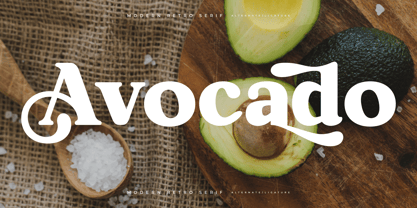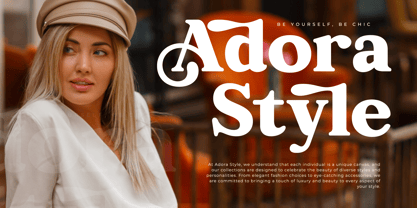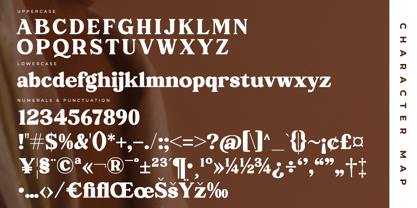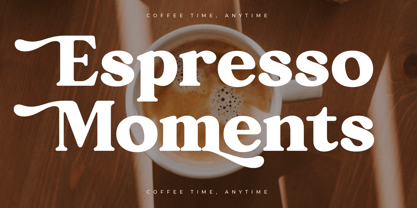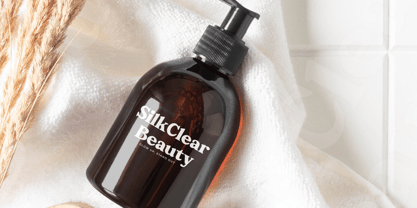
Blastge
by Letterena Studios
The Blastge Font Family was designed by Heru Utama Putra and published by Letterena Studios. Blastge contains 2 styles and family package options. More about this family
Blastge is a modern and stylish serif font that combines sophistication with contemporary flair. Its clean lines and balanced proportions make it perfect for editorial designs, branding, and logos. With its versatility and timeless appeal, Blastge elevates any project with elegance and professionalism.